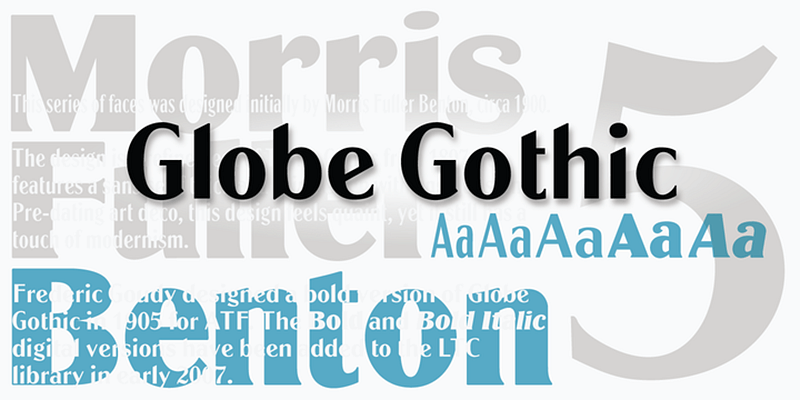
LTC Globe Gothic is a refinement of Taylor Gothic redone by Morris Fuller Benton in the early 1900s. Frederic Goudy designed the bold for Globe Gothic in 1905. This design feels quaint, yet modern.
Lanston Type Co. (LTC) has roots back to the Lanston Monotype Company of 1887, founded by Tolbert Lanston, inventor of the Monotype casting machine. After parting ways with its English counterpart, LTC struggled and was sold several times to American Type Founders, Hartzel Machine Works, Mackenzie & Harris, and Gerald Giampa. P22 Type Foundry acquired it in 2004 and is now home to classic designs of Frederic W. Goudy and Sol Hess and newer contemporary masters Giampa, Jim Rimmer, and Dave Farey.